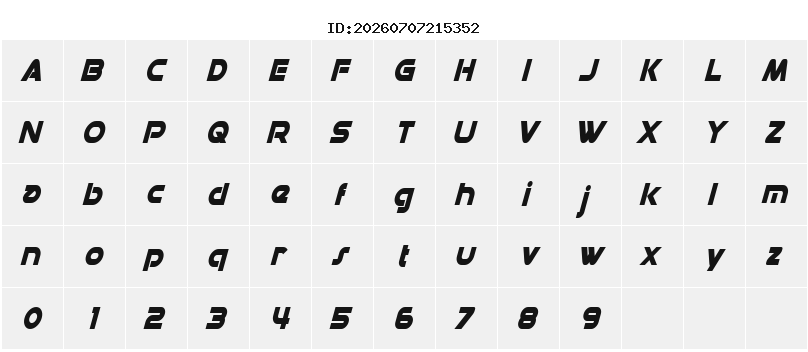
Datacron Condensed Preview
• Font Name: Datacron Condensed
• Full Font Name: Datacron Condensed Bold Italic
• Designer: Neale Davidson
About Datacron Condensed.ttf
Datacron Condensed.ttf is a modern, elegant sans-serif font designed for ultimate readability and visual harmony. Perfect for branding, headlines, web design, and print materials.